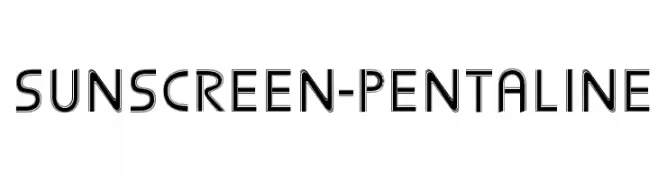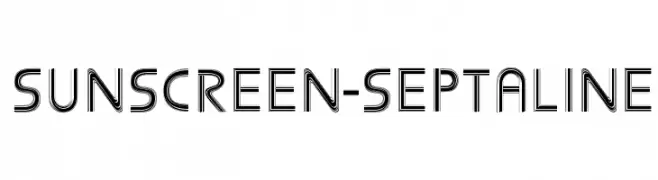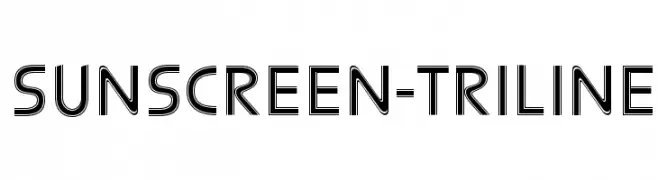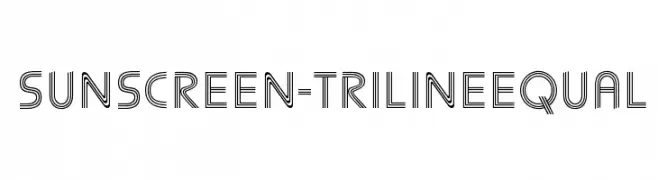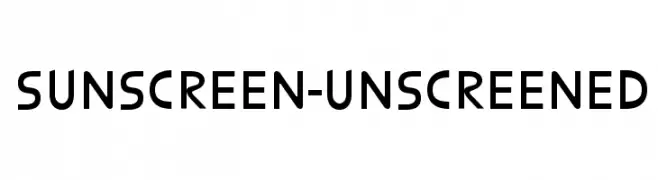
( Fonts by Simon Cozens )
A modern, geometric font with clean lines and uniform stroke widths.
( Fonts by Simon Cozens )
A modern triline font with geometric, parallel line design.
( Fonts by Simon Cozens )
A modern, geometric font with a three-line pattern and bold, futuristic style.
( Fonts by Simon Cozens )
A modern, decorative font with layered, parallel lines creating a dimensional effect.
( Fonts by Simon Cozens )
A bold, geometric font with a distinctive triple-line design.